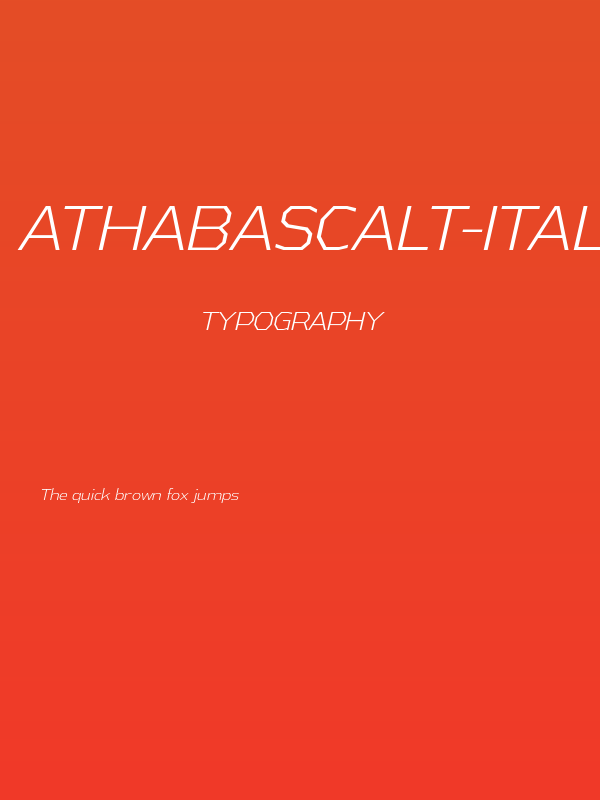
AthabascaLt-Italic Font
AthabascaLt-Italic Description
This font features a modern, angular design with a distinct italic slant, giving it a dynamic and forward-moving appearance. The characters are constructed with sharp, geometric lines that create a sense of precision and clarity. Uppercase and lowercase letters maintain a consistent style, with a slight variation in stroke thickness that adds subtle contrast. The numerals are bold and easily distinguishable, complementing the overall aesthetic. Special characters are crafted with the same attention to detail, ensuring uniformity across the typeface.
| Proposed Projects | Ideal for tech branding, modern editorial design, and innovative product packaging. |